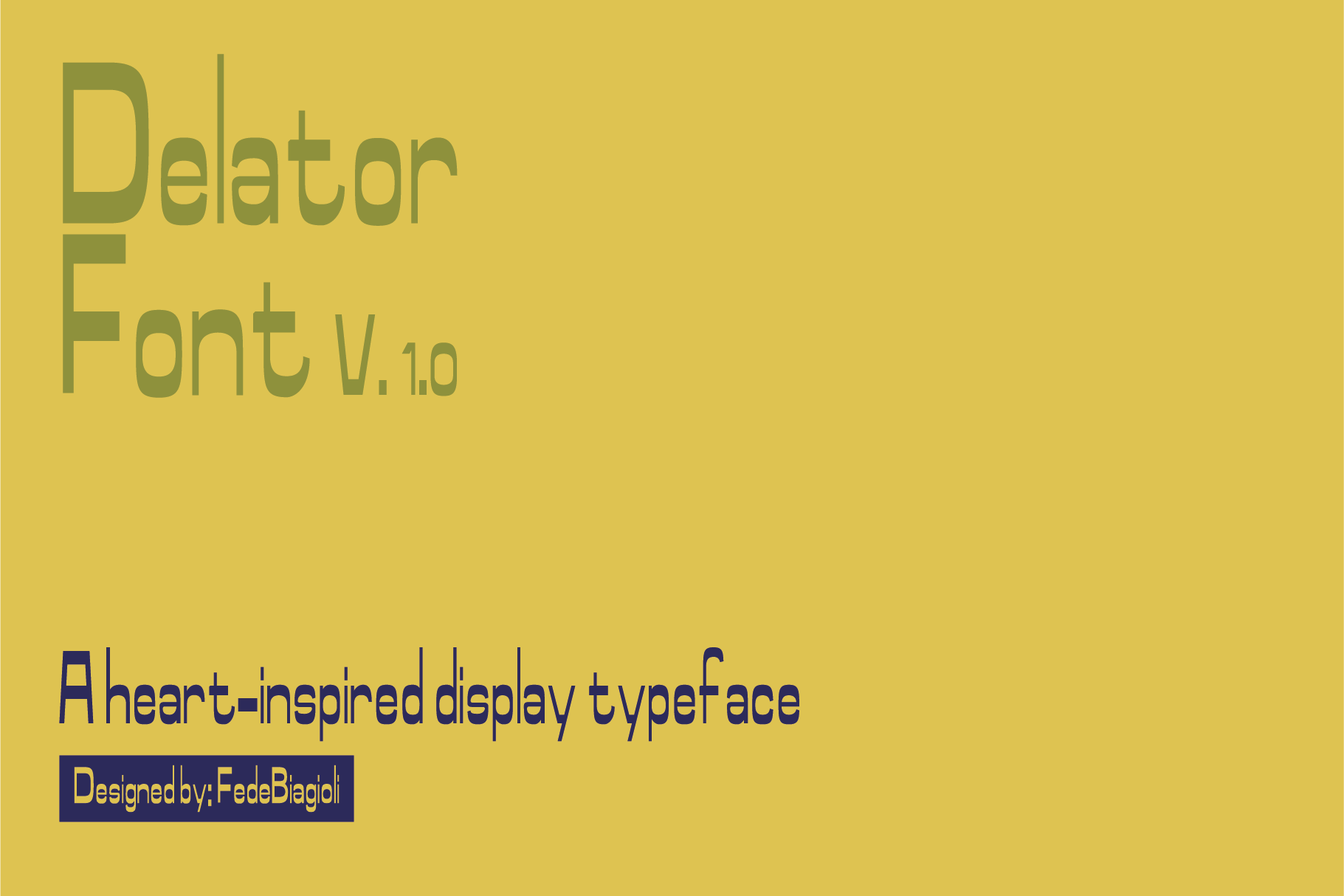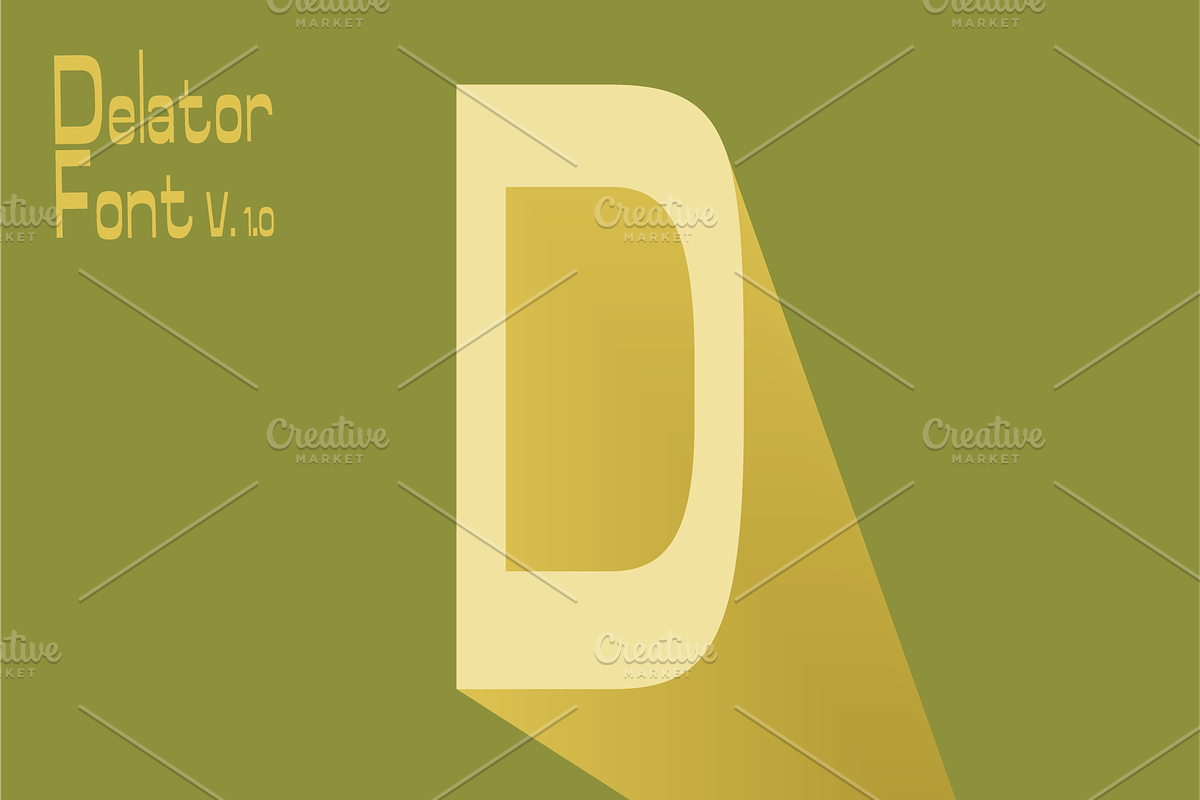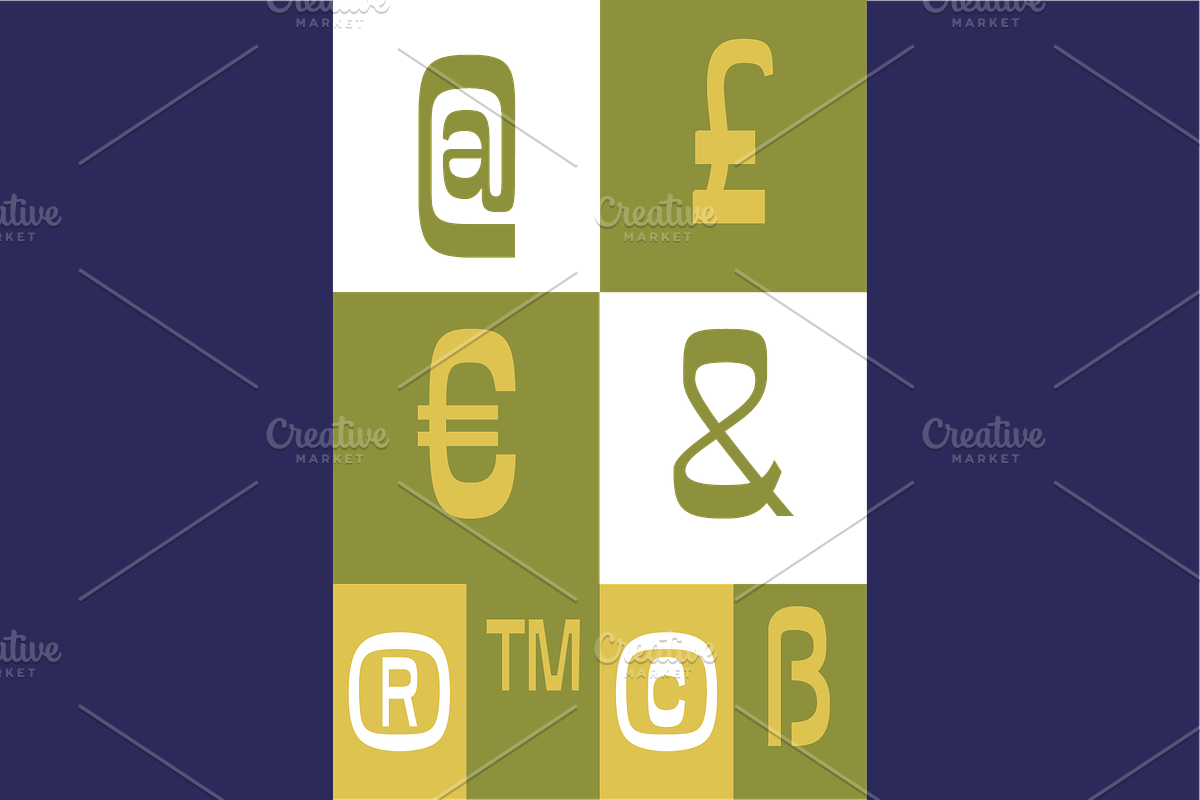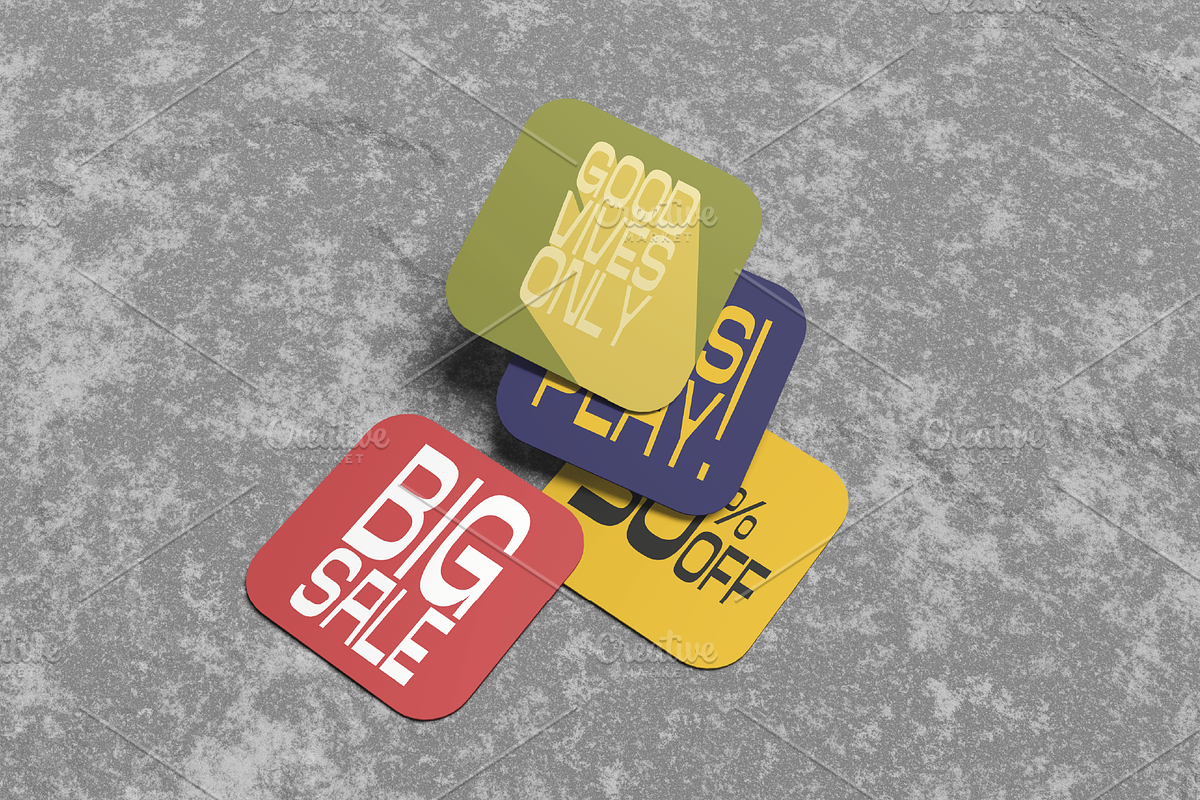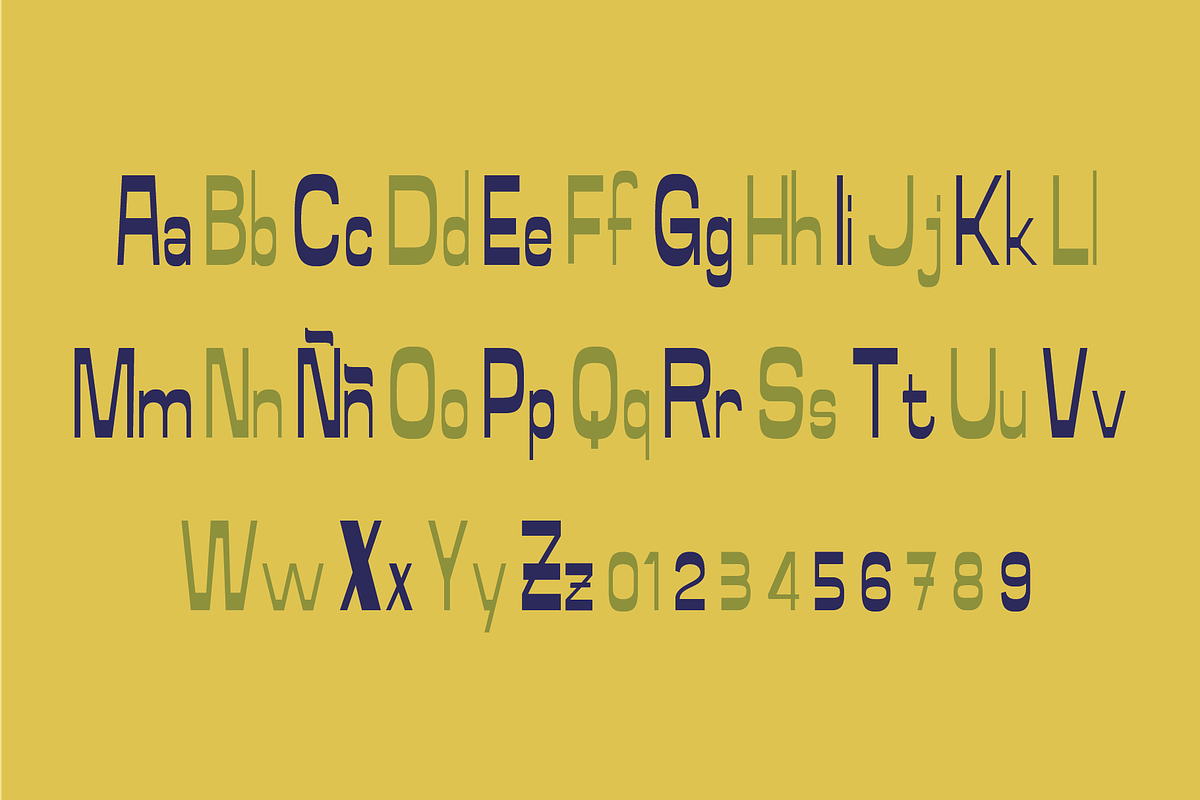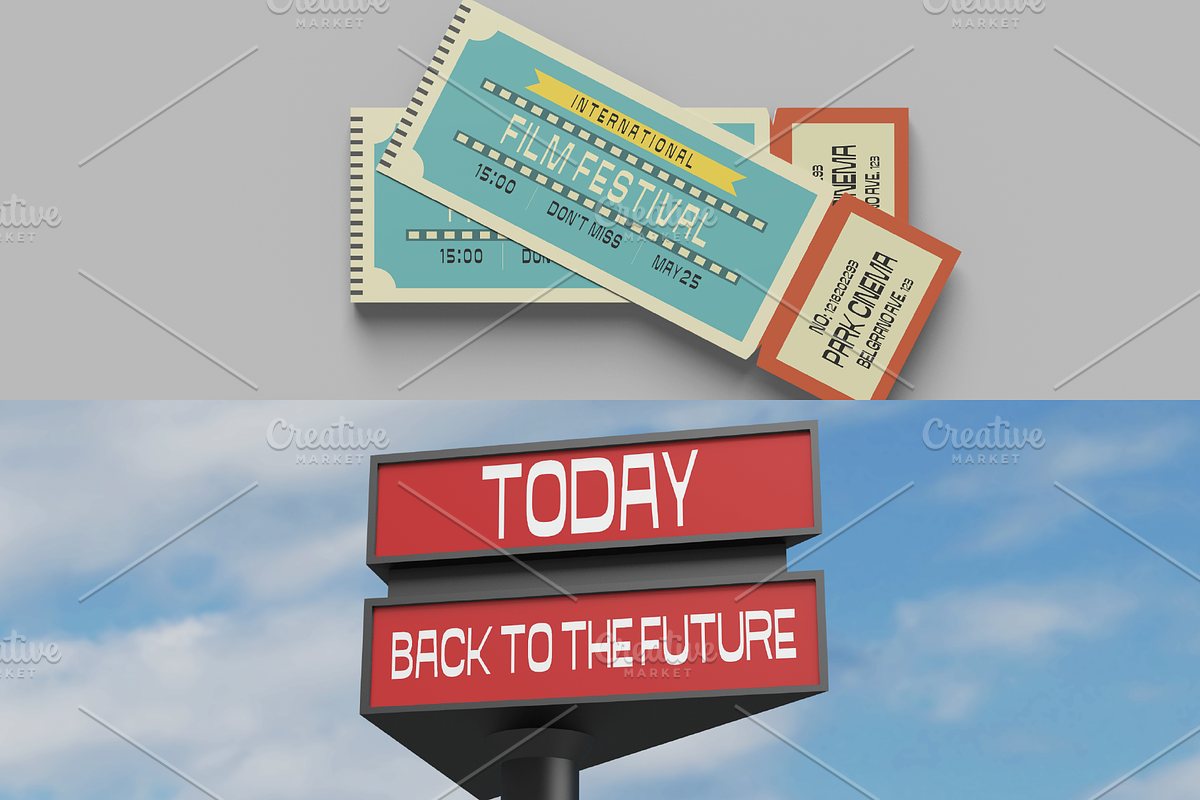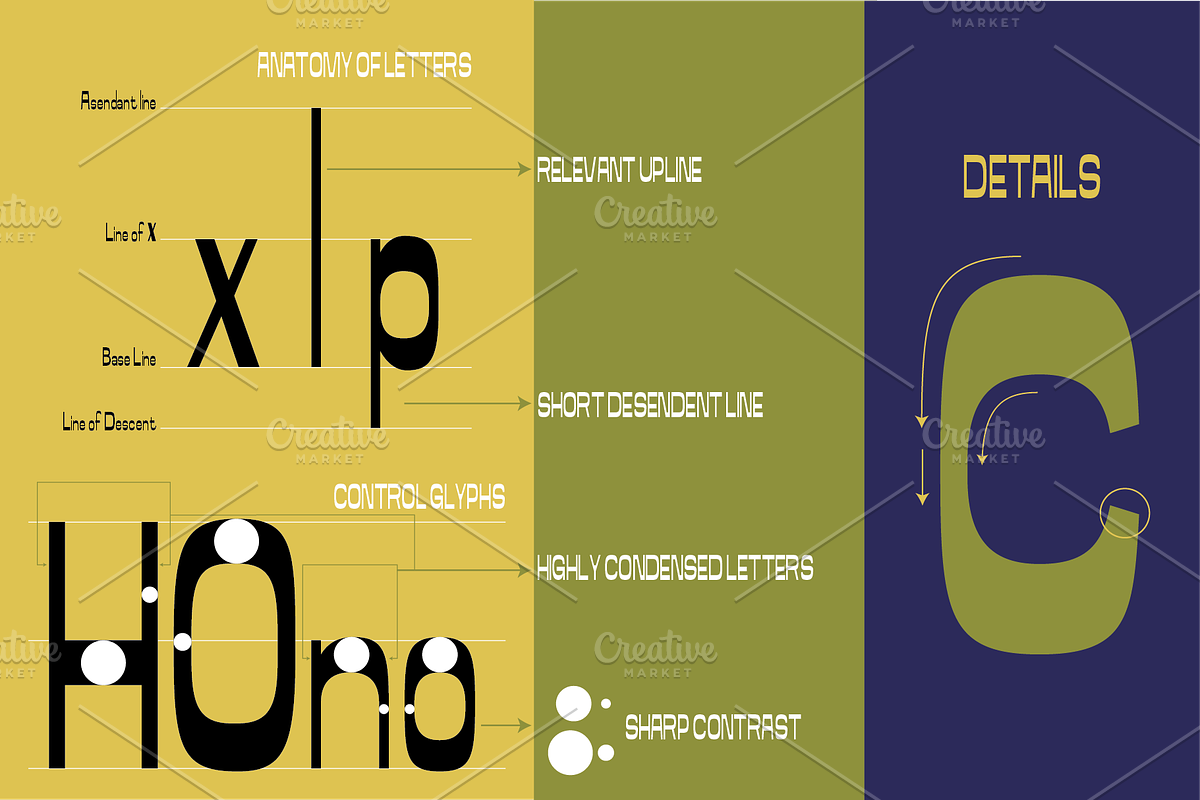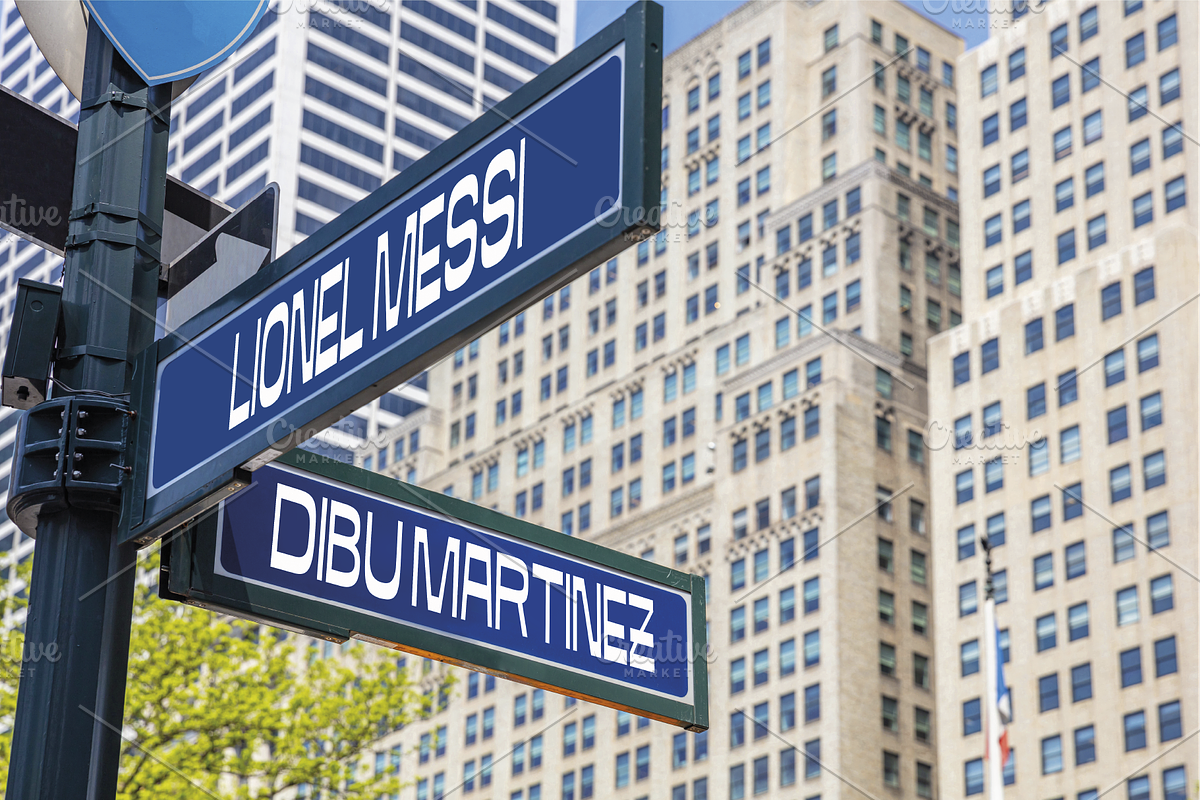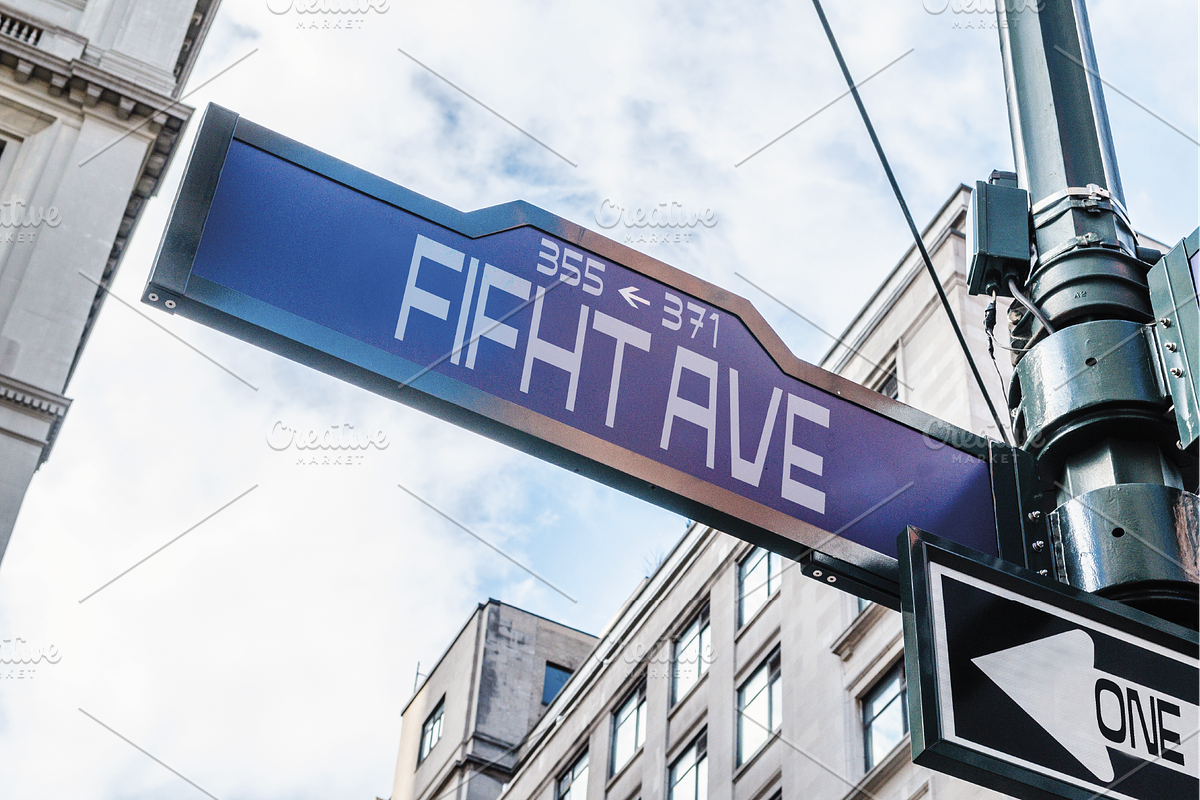
Delator Font
Delator is an inverted contrast typeface family, developed from the idea of getting ahead after a difficult experience.
Delator is a sans serif, reverse-weight, condensed typeface, ideal for titles, short sentences and high impact messages.
Perfect for editorial design, branding and signage.